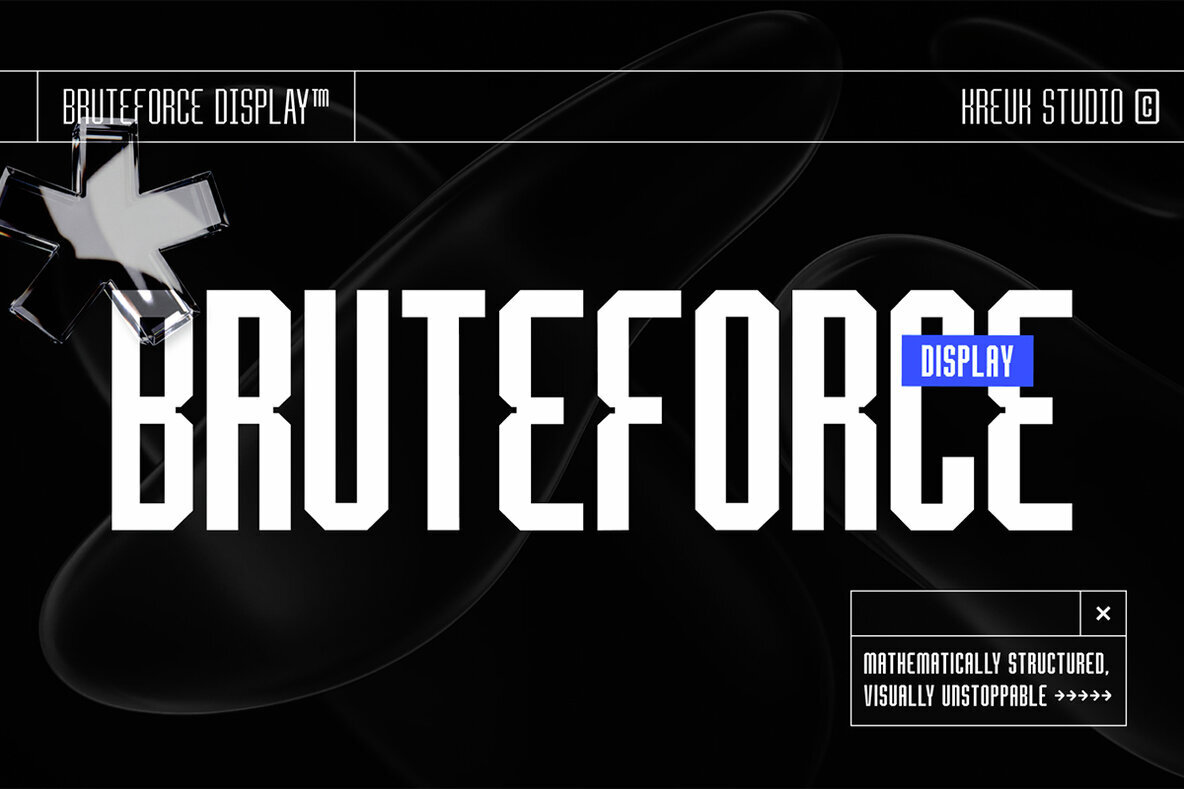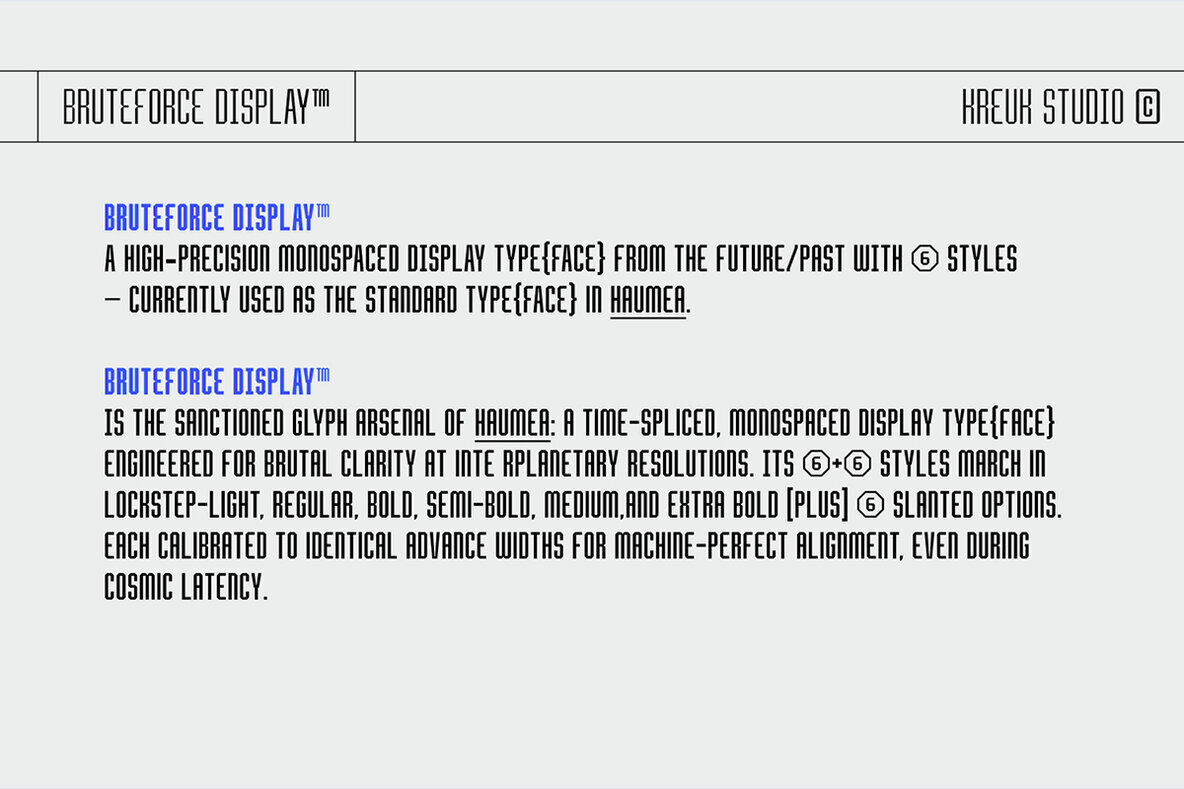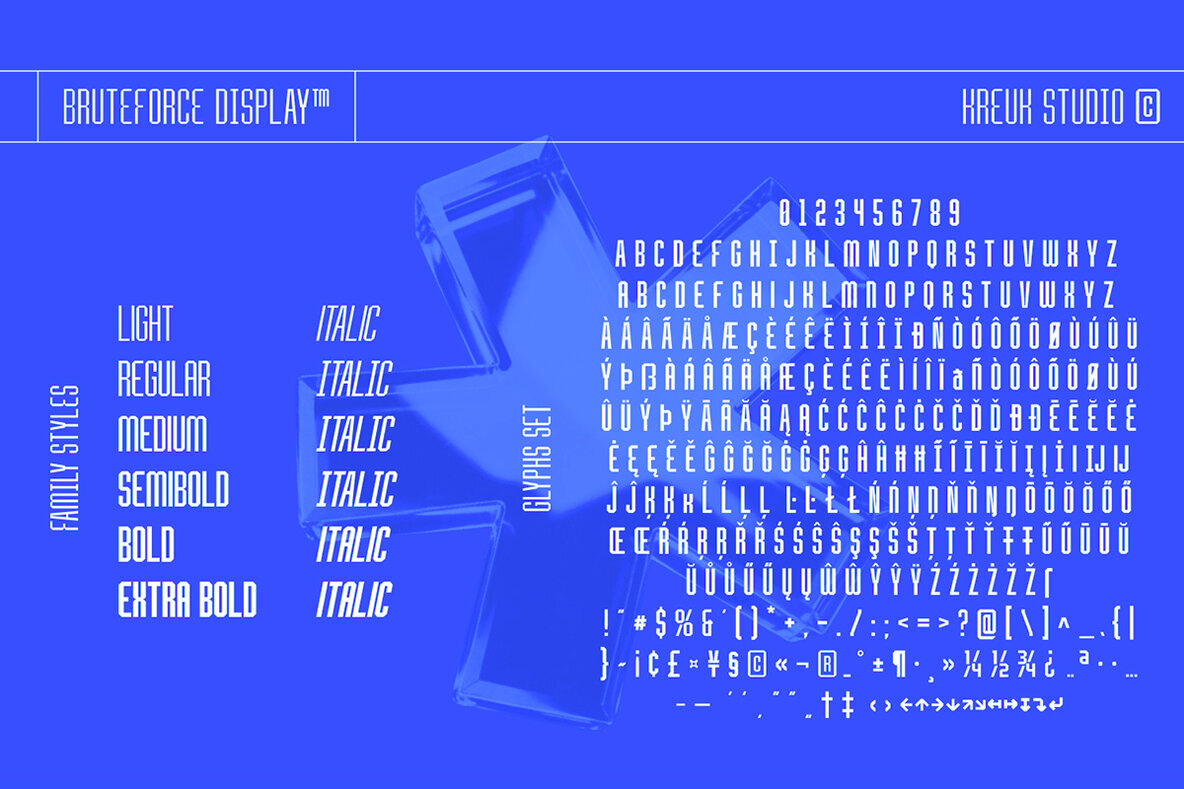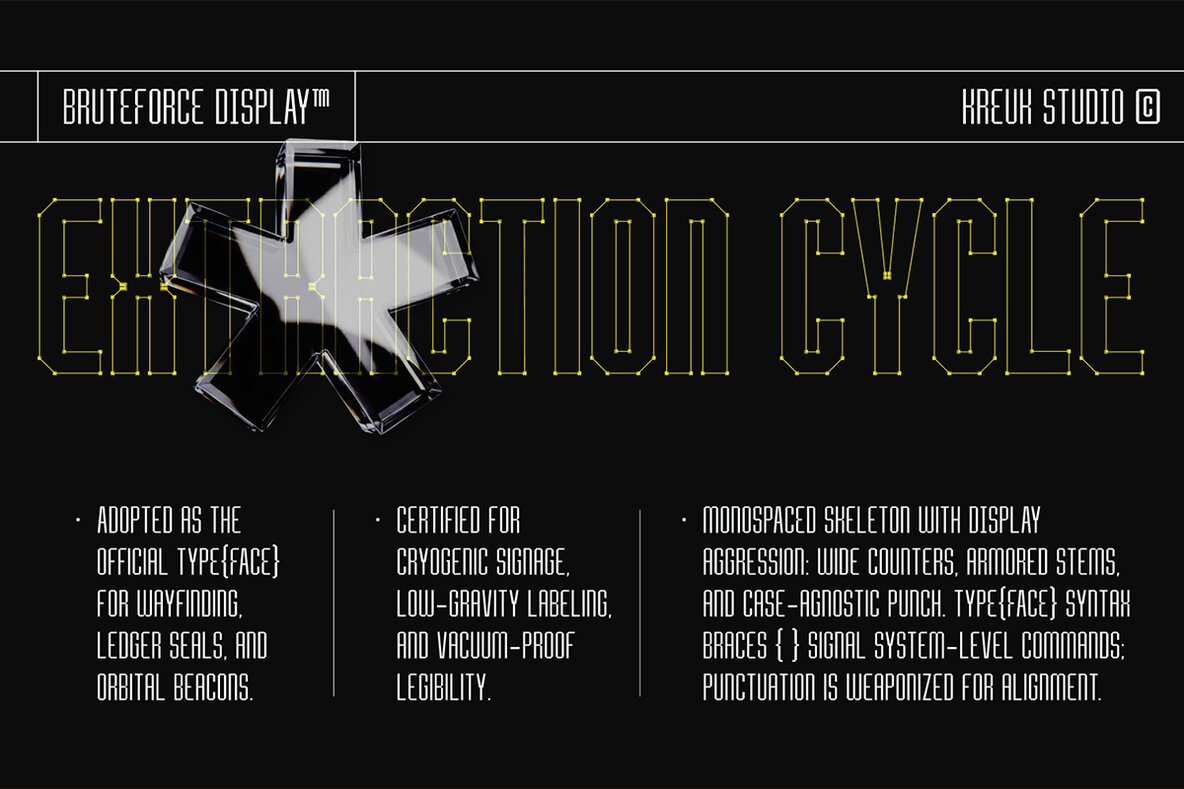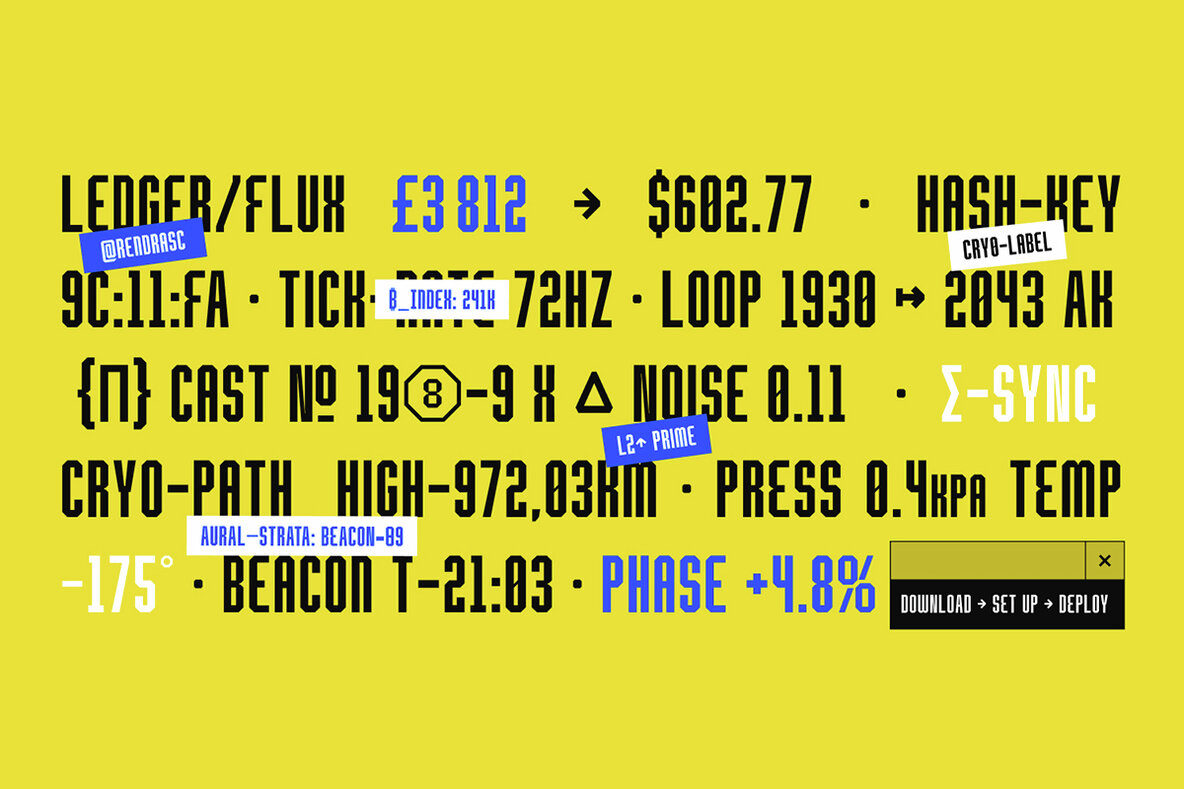
Bruteforce Font
Bruteforce Display presents a sharp and energetic typeface that fuses precision with a bold style. Each letterform is intricately designed with angular geometry and rhythmic balance, providing structural strength that stands out in varied applications. Ideal for posters, logos, digital interfaces, or futuristic branding, Bruteforce Display exudes mechanical precision and architectural authority, making it a perfect fit for projects requiring both technical accuracy and expressive flair. This typeface comes in six meticulously designed weights, ranging from Light to Extra Bold, with matching Italics. It provides a comprehensive typographic toolkit for both print and digital media, ensuring consistent spacing, optical balance, and legibility at display sizes.Bruteforce Display: A Geometric Typeface for Modern Boldness